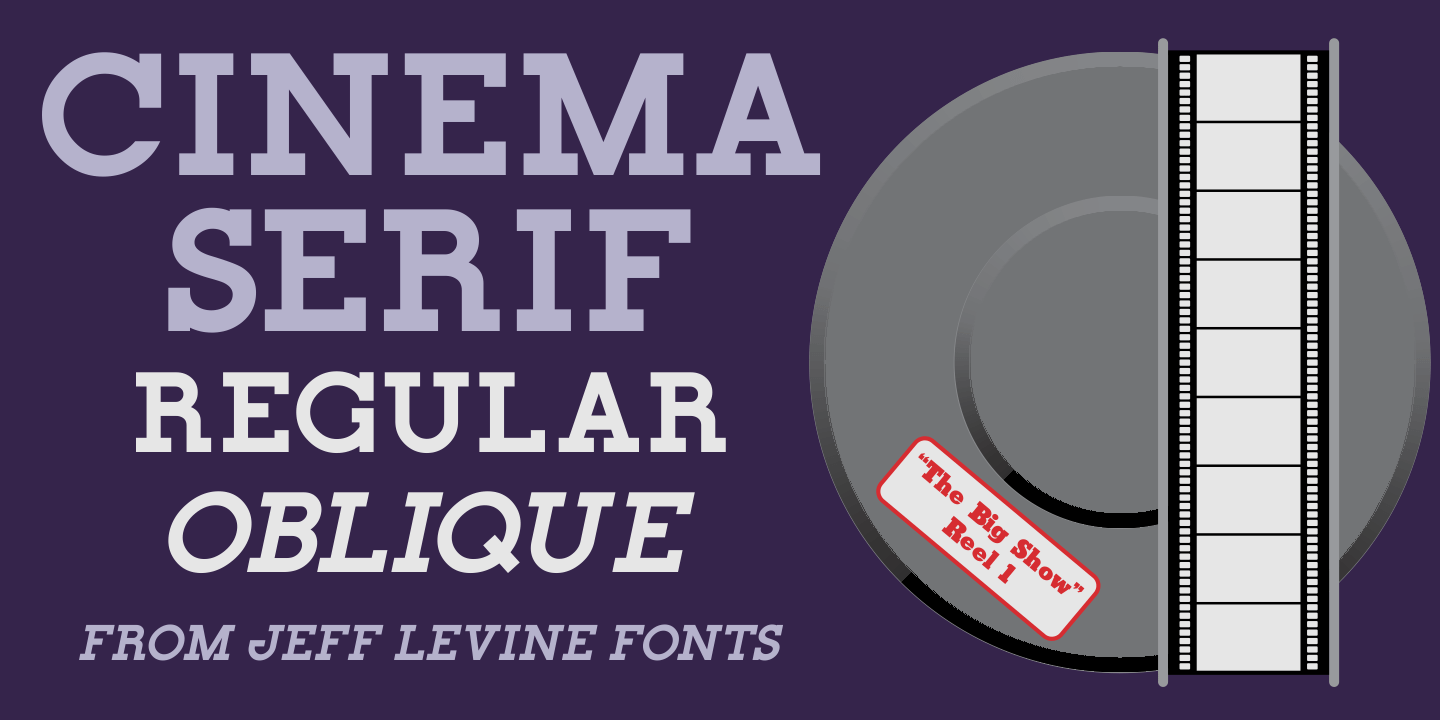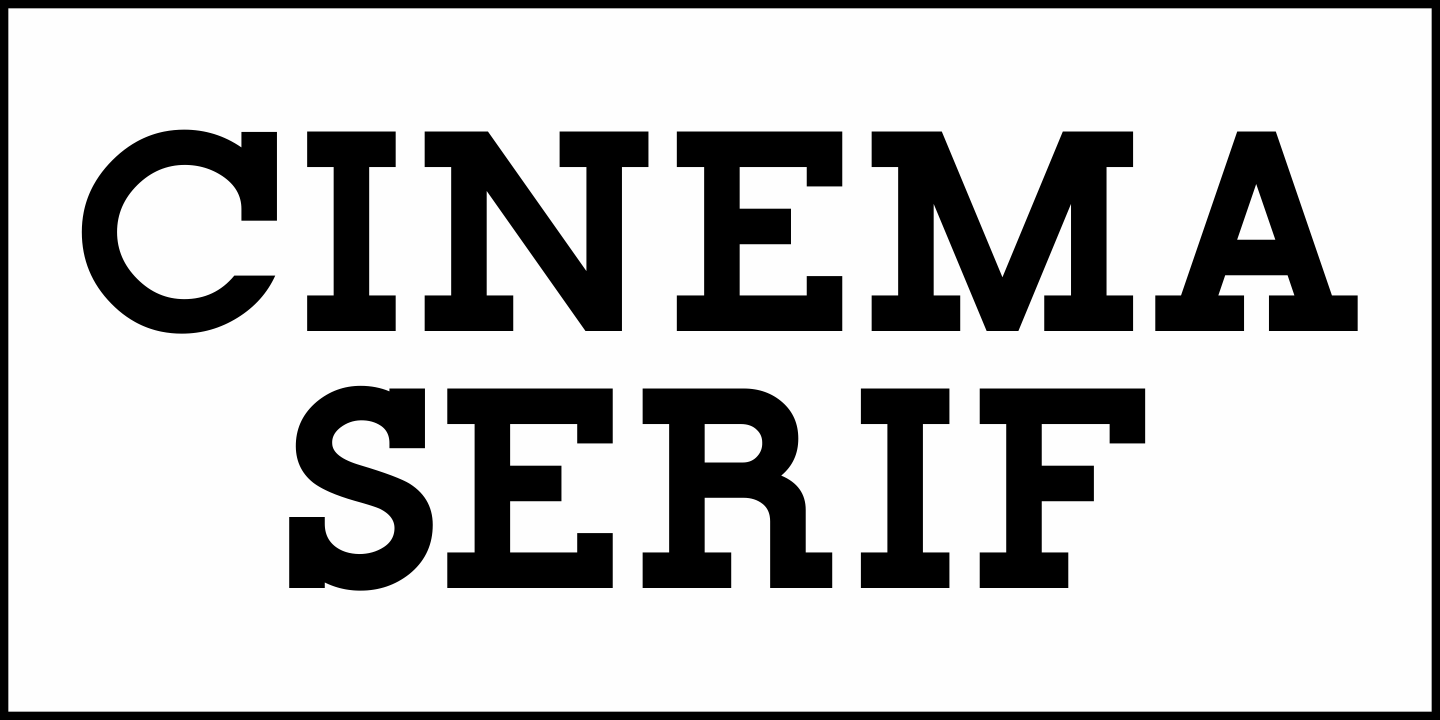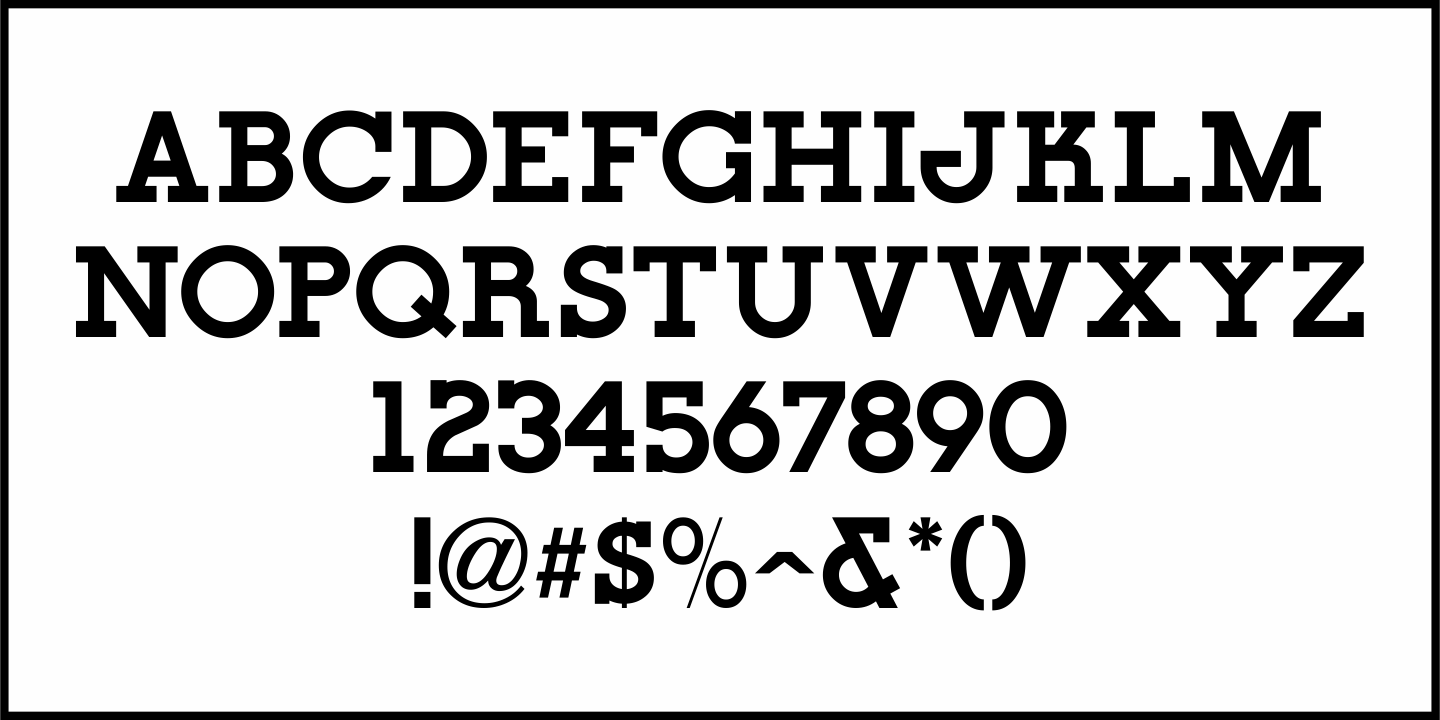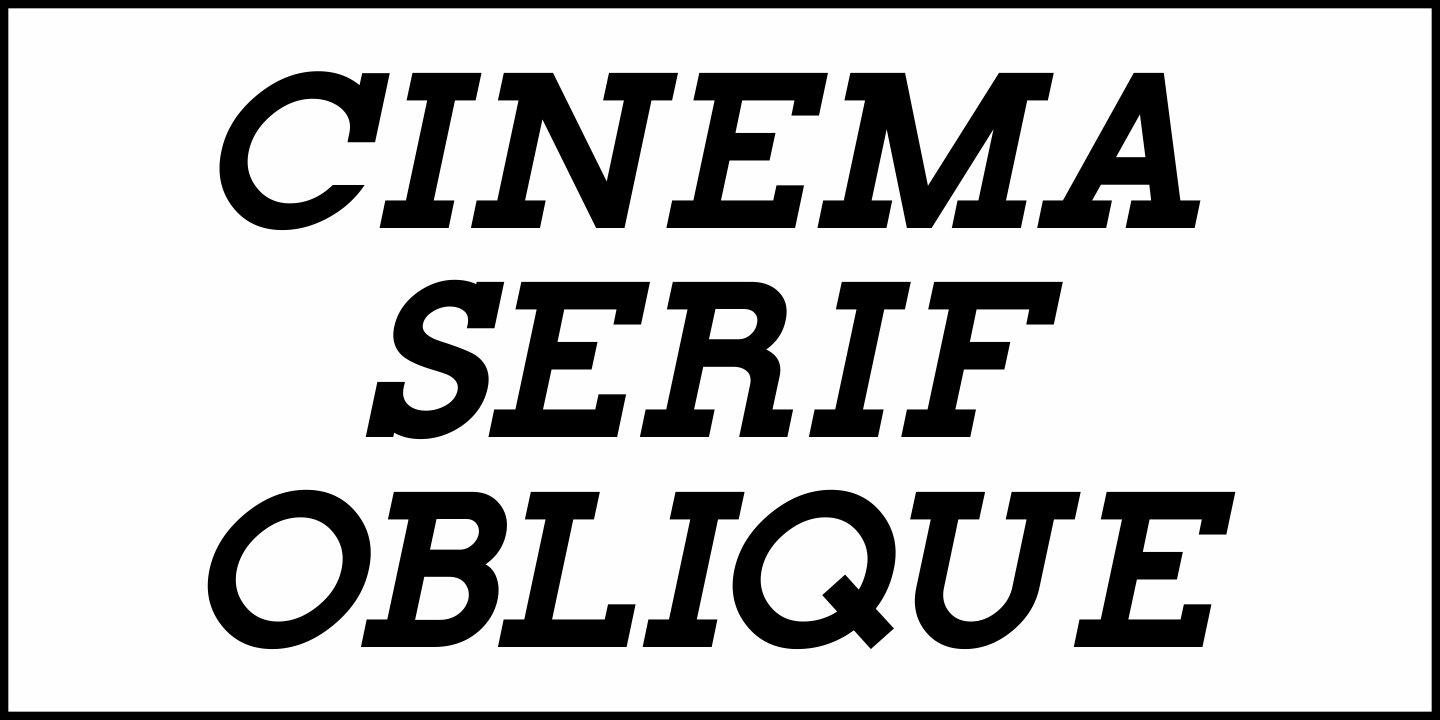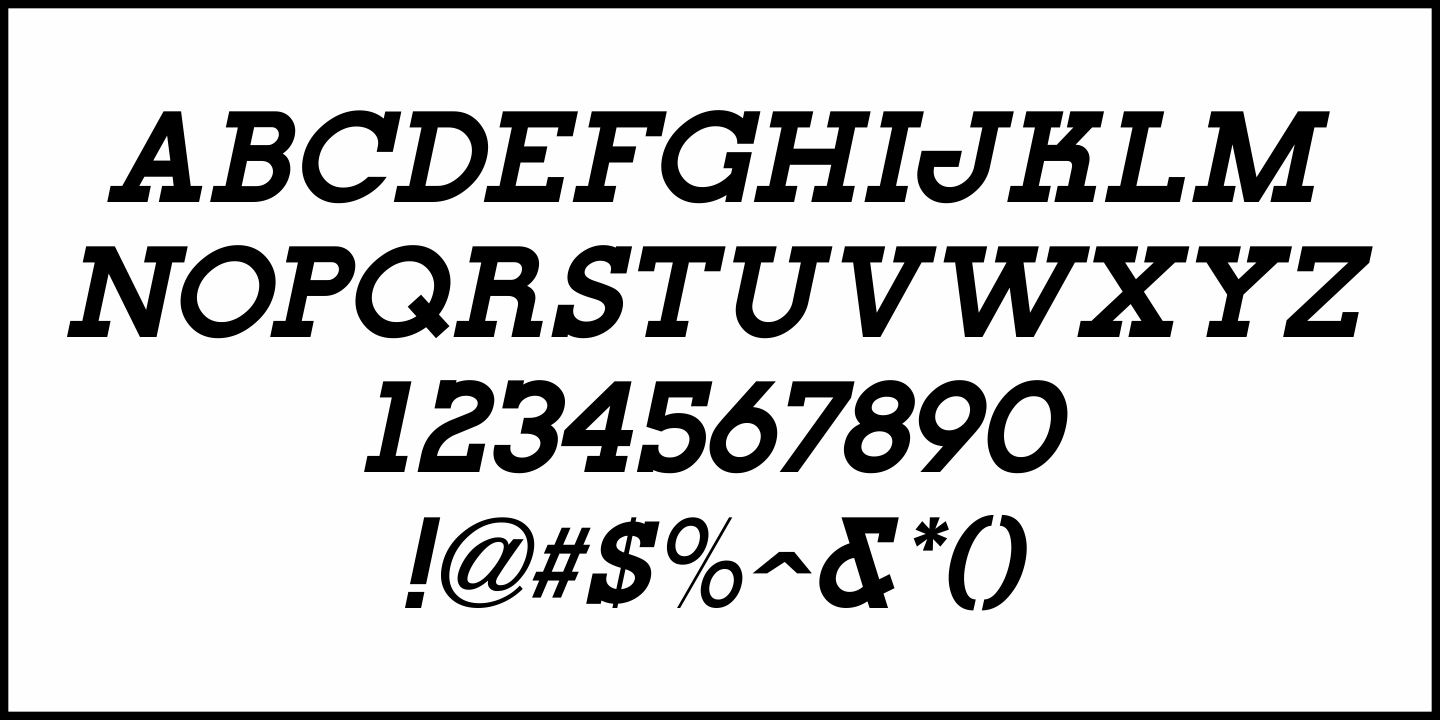
Cinema Serif
Advertisements in the September,1936 French movie publication 'La Cinématographie Française” featured a hand lettered slab serif type design that is now available as Cinema Serif JNL in both regular and oblique versions.